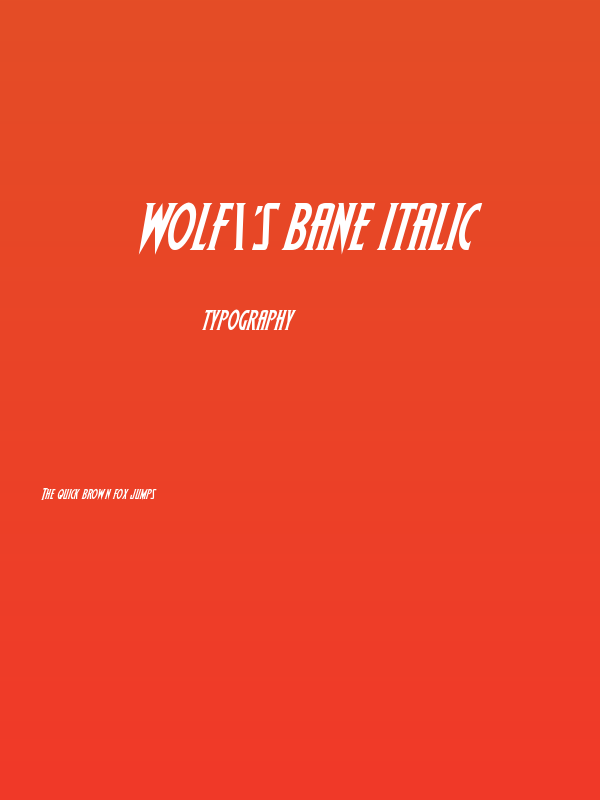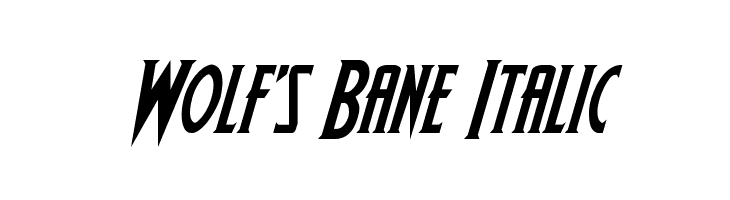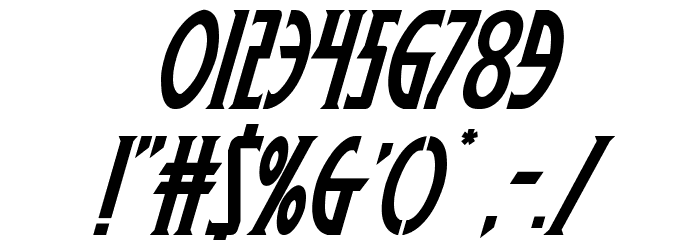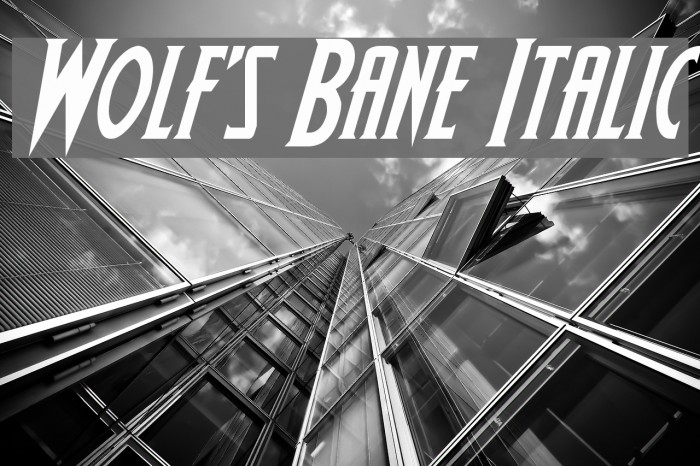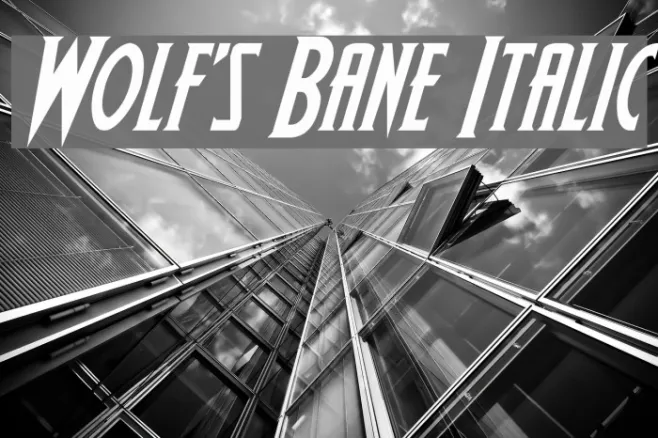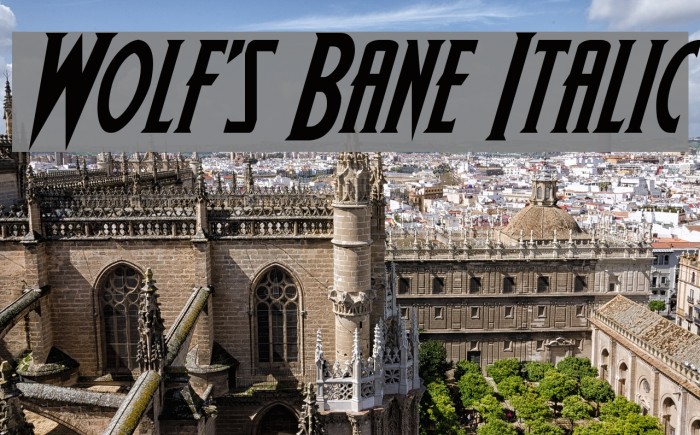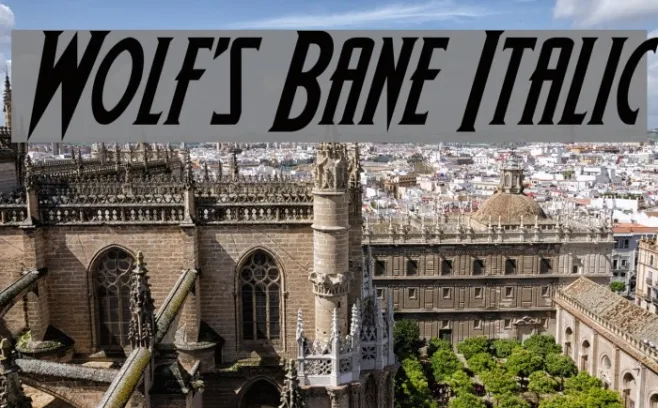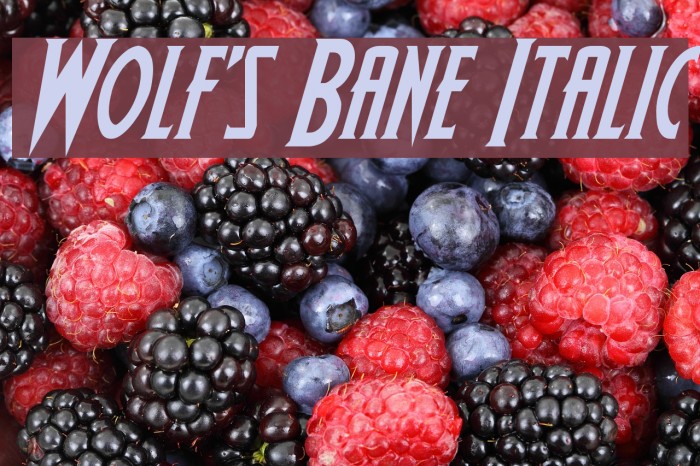
Wolf's Bane Italic Font
Wolf's Bane Italic Description
This font features a bold and dynamic design with a distinct italic slant, giving it a sense of motion and energy. The characters are sharply angled with pointed serifs, creating a striking and aggressive appearance. The uppercase and lowercase letters maintain a consistent style, with the uppercase being more pronounced. Numbers and special characters are designed to match the overall aesthetic, ensuring uniformity across all text. The font's unique style makes it stand out, ideal for projects that require a strong visual impact.
| Proposed Projects | Ideal for sports branding, action movie posters, video game titles, and dynamic advertising campaigns. |